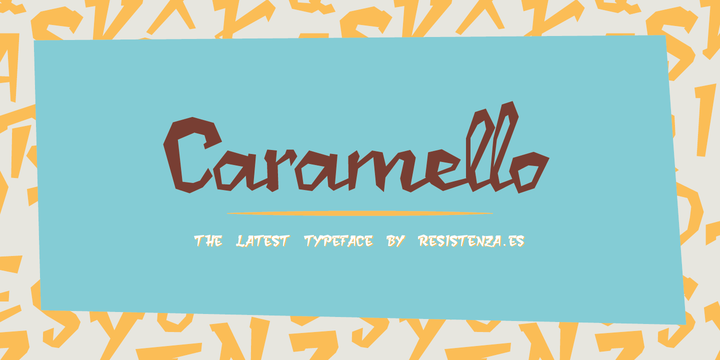
Caramello Script was first designed with pencil on paper and than convert into a real font. The result is a fresh typography that can be used for different kind of purposes. It’s perfect for children oriented publishing or as a display font.
Taking advantage of Opentype functions, it’s possible to get different styles of writing, adding initials, ligatures, contextual characters and alternatives, plus a complete set of uppercase letters.
Inspired by some different sweet packagings from the 60’s.